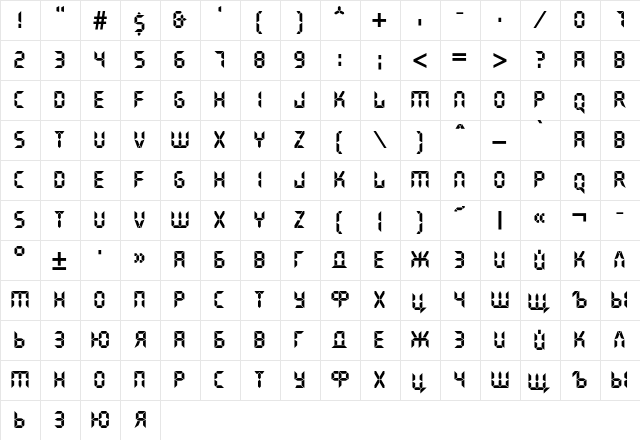
DS CrystalC Regular
Design Context for DS CrystalC Typeface
DS CrystalC takes a measured approach to typography — its balanced proportions and neutral character make it a reliable workhorse for both digital and print work.